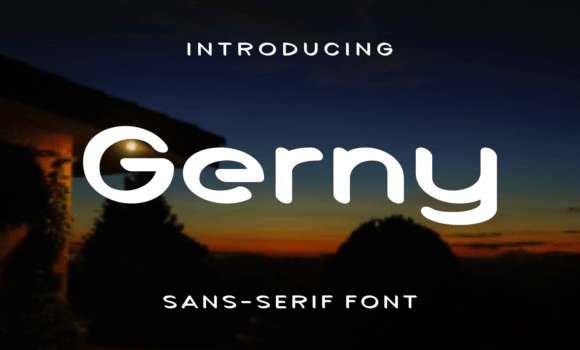
gerny
Gerny Font – Free Download Introduction to Gerny Font Gerny is a fun and friendly sans serif font. 📸 Preview Gallery 2 images 📌 Product Name Gerny Font 👤 Author lelevien 📂 Category Explore ⬇️ Download Gerny Font FREE Free